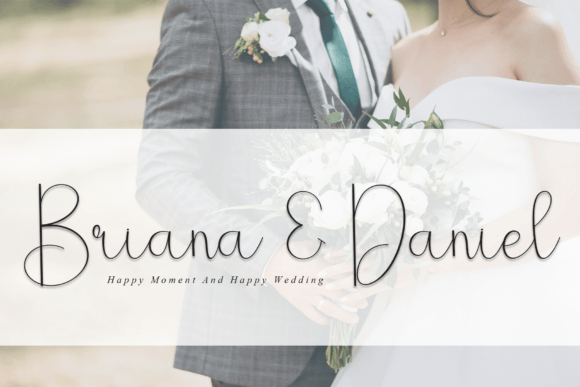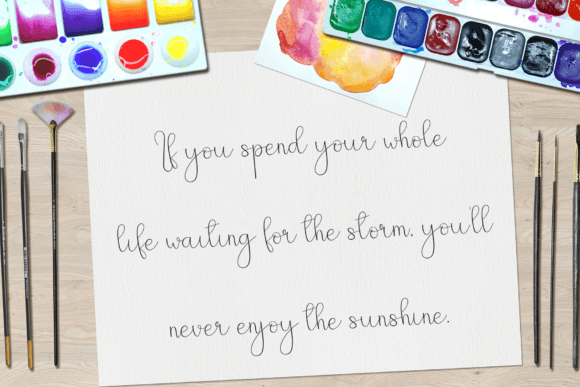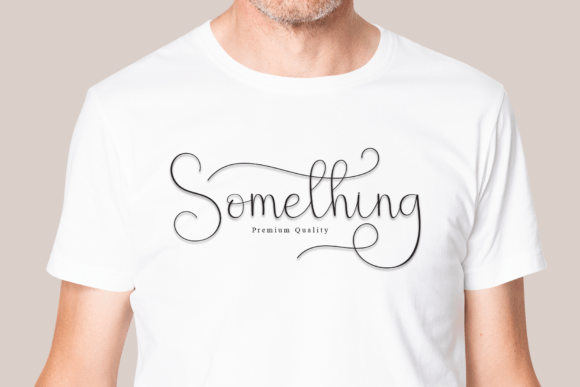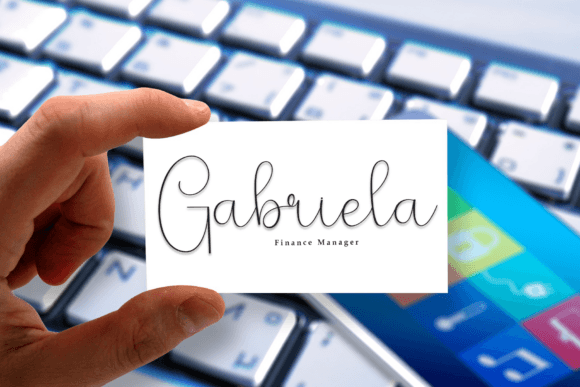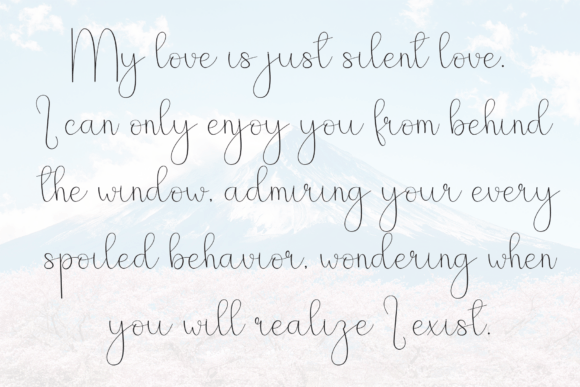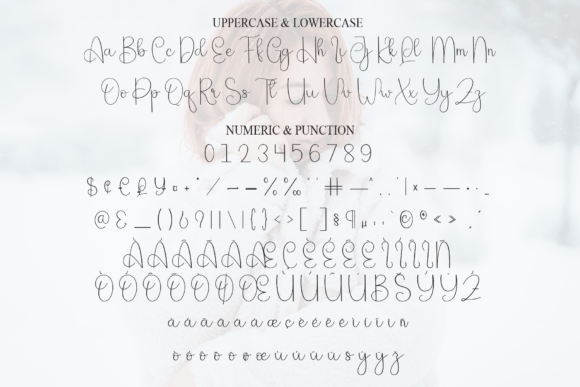
The Perfect Font for a Touch of Whimsy
Do you remember that moment when a font just speaks to you, and you can’t help but envision your entire design project unfolding in perfect harmony? For many designers, this moment of epiphany is exactly what happened when they stumbled upon the enchanting Beauty Snowing Font. This display font is an ode to the art of handwritten typography, exuding an aura of friendliness and sweetness that’s sure to captivate your audience.
As a designer, you’re constantly on the lookout for that special something that sets your work apart from the rest. The Beauty Snowing Font is that secret ingredient that lends an endearing and lively vibe to any project, be it a wedding invitation, a card, or even a social media graphic. With its quirky charm and playful nature, this font is a valuable addition to any designer’s toolkit, allowing you to unleash your creativity and push the boundaries of what’s possible.
Beauty Snowing Font Key Features
- Font Size and Style: The font comes in 5 different sizes, including Regular, Italic, Bold, Bold Italic, and Outline, allowing for versatility in design applications.
- Unique Characteristics: This font features a unique, elegant design with a touch of winter wonder, making it perfect for festive and holiday-themed projects.
Beauty Snowing Font Review
At first glance, the Beauty Snowing Font is a beautiful and elegant font that exudes a sense of luxury and sophistication ✨. The font’s unique design features, such as its delicate snowflake-inspired elements, add a touch of whimsy and playfulness that can be both captivating and refreshing. The font’s wide range of styles and weights also make it incredibly versatile, allowing designers to experiment with different looks and feels.
- The font’s high-quality design makes it perfect for use in high-end branding and marketing materials ✨.
- The font’s unique features, such as the snowflake elements, can add a touch of personality and whimsy to designs ✨.
- The font’s wide range of styles and weights make it easy to use in a variety of contexts.
However, there are a few limitations to consider ⚠️. The font may be overused or become too trendy, which can affect its overall impact. Additionally, the font’s delicate design elements may not be suitable for use in very small sizes or in situations where legibility is a top priority.
Overall, the Beauty Snowing Font is a beautiful and versatile font that can add a touch of elegance and sophistication to a wide range of designs. While it may have some limitations, its unique features and high-quality design make it a great choice for designers looking to add a little something extra to their work.
The Beauty Snowing Font is ideal for:
- Christmas and holiday-themed designs
- Formal events and parties